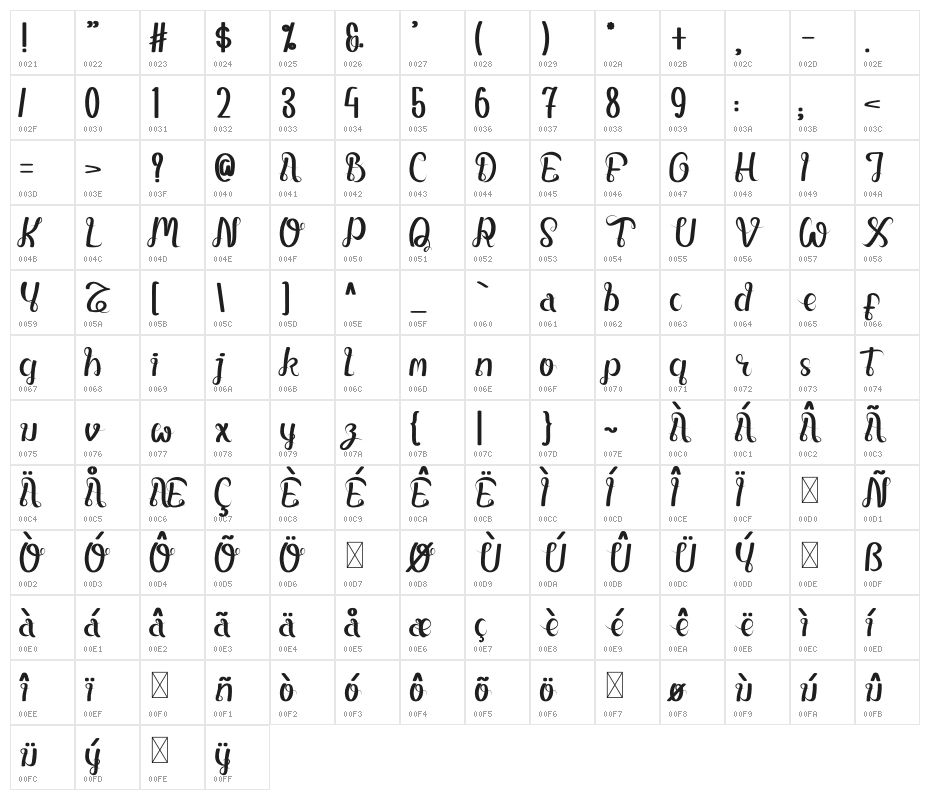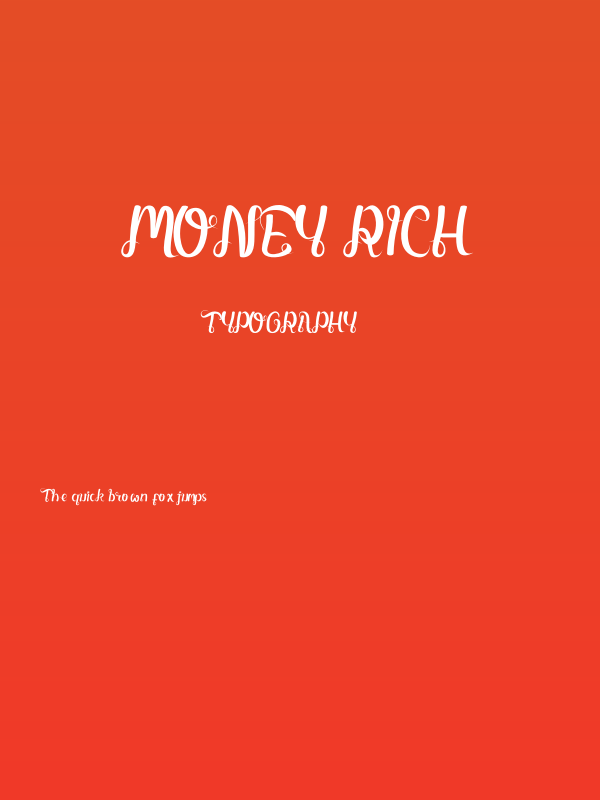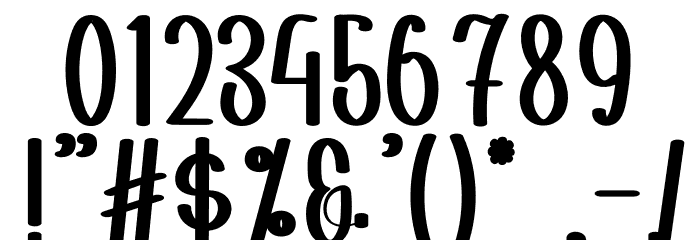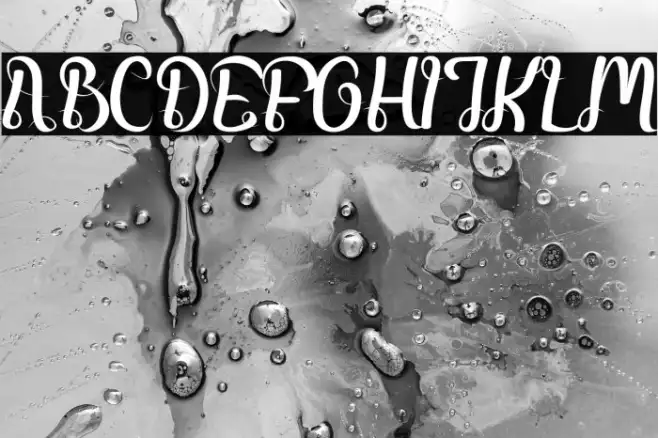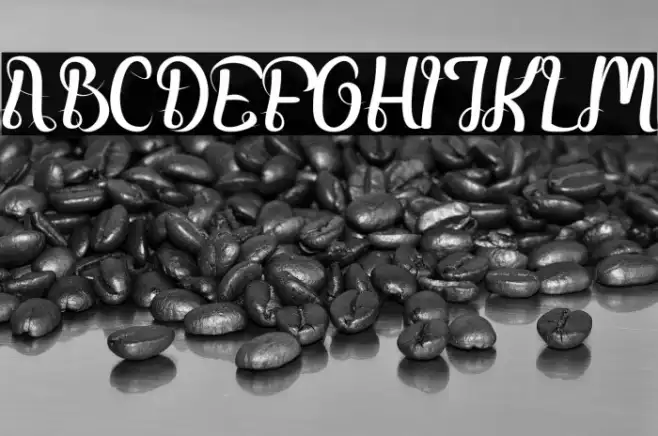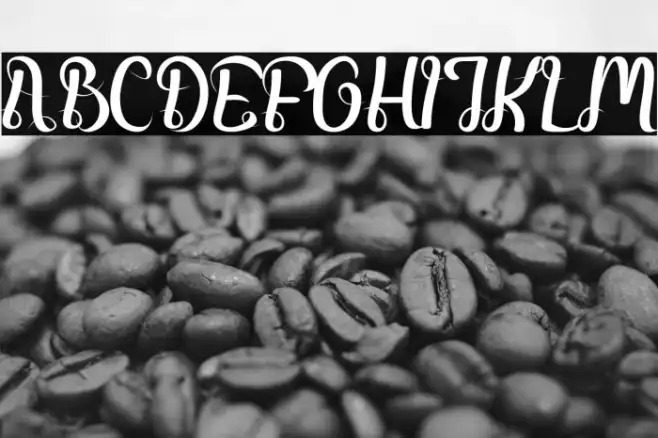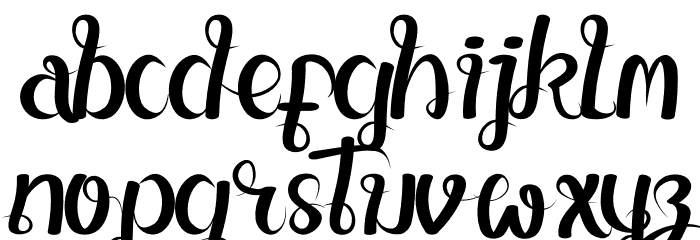
Money Rich Font
Money Rich Description
This font features a playful and whimsical script style with a touch of elegance. The characters are interconnected with smooth, flowing lines and occasional loops, creating a sense of movement and fluidity. The uppercase letters are bold and prominent, while the lowercase letters maintain a consistent flow, enhancing readability. The numbers are equally stylized, matching the overall aesthetic of the font. Special characters are creatively integrated, maintaining the font's unique style. This font is ideal for projects that require a touch of creativity and flair, such as invitations, branding, and decorative designs.